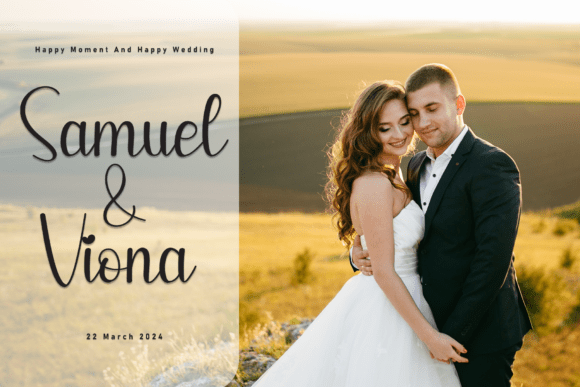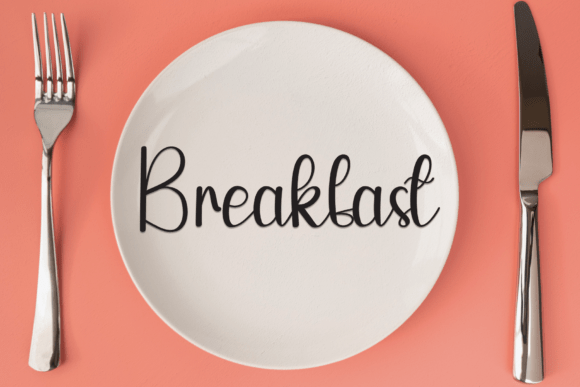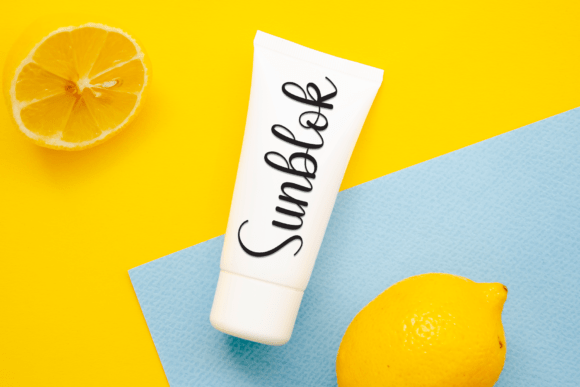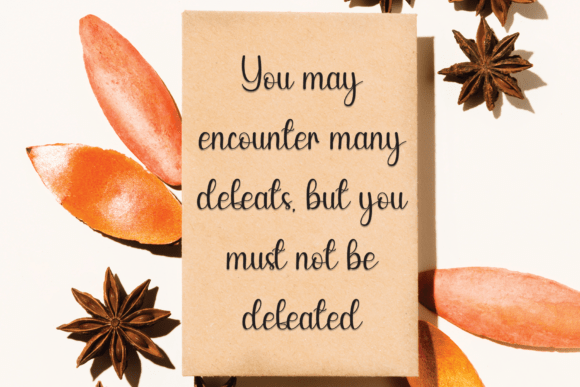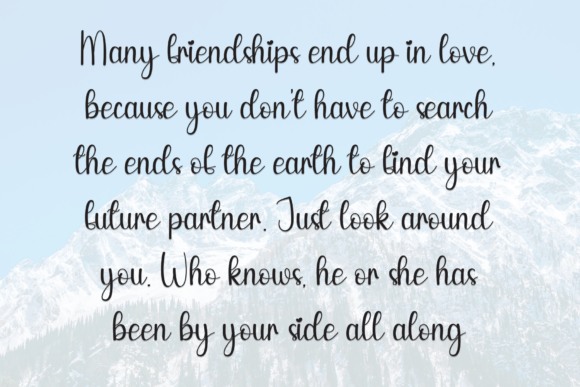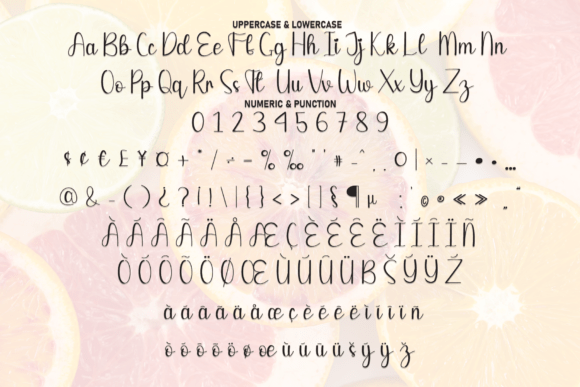
Introduction to Juicy Font
As a designer, have you ever been stuck on a creative project, searching for that perfect font to capture the essence of your vision? It’s like trying to find the missing piece of a puzzle, and suddenly, it clicks. You envision a vibrant, playful, and endearing design that screams for attention. That’s where the Juicy Font comes in – a delightful, hand-drawn font that embodies the spirit of freshness and whimsy.
With its soft curves and friendly tone, the Juicy Font is an absolute gem for designers. Its cute heart accent adds an extra layer of charm, making it a perfect fit for food packaging, kids’ products, and Instagram posts. Whether you’re working on a commercial project or a personal creative endeavor, the Juicy Font is an invaluable design resource that can elevate your work to the next level.
Key Features of Juicy Font
- High-quality vector design: Juicy Font is a meticulously crafted font suitable for creative projects, offering crisp and clear typography.
- Unique, playful design: The font’s unique design and playful feel make it an excellent choice for designers looking to add a creative touch to their work.
Honest Review: Juicy Font
I recently had the chance to work with the Juicy Font for a creative project and I must say it was a great experience. This free download has really impressed me with its high quality and versatility.
What works well with the Juicy Font is its transparent background, which makes it super easy to combine with other design elements. The font is also incredibly customizable, allowing me to experiment with different styles and colors to match my project’s needs. ✨ I was able to create a unique and eye-catching design with the Juicy Font that really stood out.
- High-quality design: The Juicy Font is crisp and clear, making it perfect for both digital and print projects.
- Customizable: The font’s versatility makes it suitable for a wide range of creative projects.
However, I did encounter some limitations. ⚠️ The font may not be suitable for projects that require a more formal or traditional look. Additionally, the font’s design may not be ideal for very small text sizes.
Overall, I’m really impressed with the Juicy Font and would definitely recommend it for any creative project. Its high quality, customizable design, and free download make it an amazing resource for designers.
To get the most out of Juicy Font, experiment with different font sizes, colors, and styles to create visually appealing designs. You can also use it in combination with other design resources, such as images or shapes, to create a cohesive look.
Juicy Font is ideal for various creative projects, including social media graphics, presentations, posters, and documents. Its high-quality design and transparent background make it a versatile resource for designers and non-designers alike.